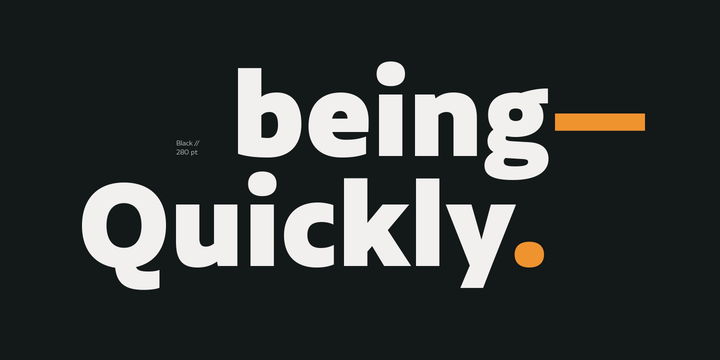
Alvar Font Family
About this font family
Alvar, a modular Humanist-flavored Sans Serif typeface, is ideal for corporate use, and brand and corporate identity design. The font performs well for mid-length text. Alvar is a neutral and clean font but it has friendly and modern design characteristics.
Alvar comes in 8 weights with matching italics and the whole family is composed of 3 subfamilies: Pro, Essential and Alt Essential, resulting in a total of 48 different styles. The Pro version includes a Latin Extended character set and OpenType features—stylistic alternates, small caps, case-sensitive forms, proportional and tabular figures, currency symbols, etc. The Essential and Alt Essential versions are well-suited for both web and corporate use